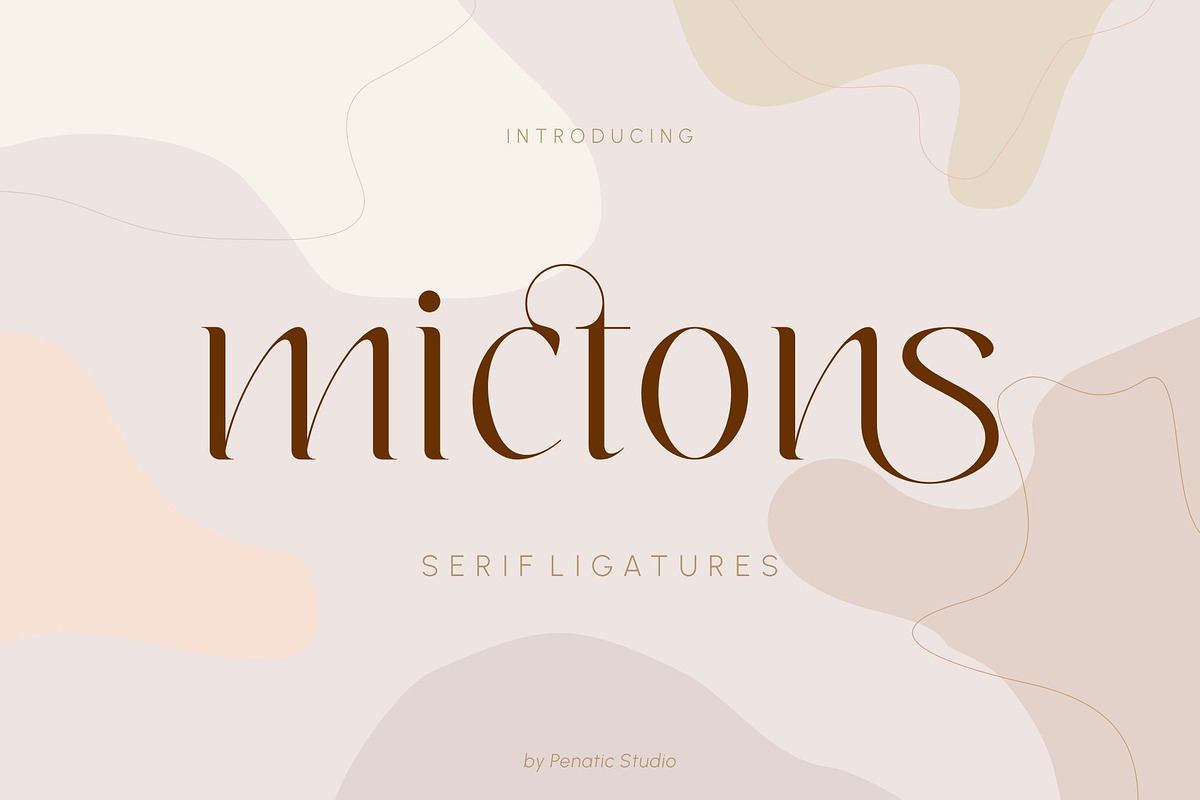
mictons Font Free Download is a sleek and minimalist typeface designed for creatives who value clean aesthetics and modern appeal. Whether you're working on branding, editorial design, website headers, or social media content, mictons offers a versatile solution with its smooth curves and balanced letterforms. This font is crafted to provide both elegance and readability across various platforms.
The beauty of the mictons Font Free Download lies in its simplicity. It’s perfect for designers looking to create a professional, high-end feel without overwhelming the viewer. From logo design to digital ads, this typeface adds a subtle but strong presence to any layout.